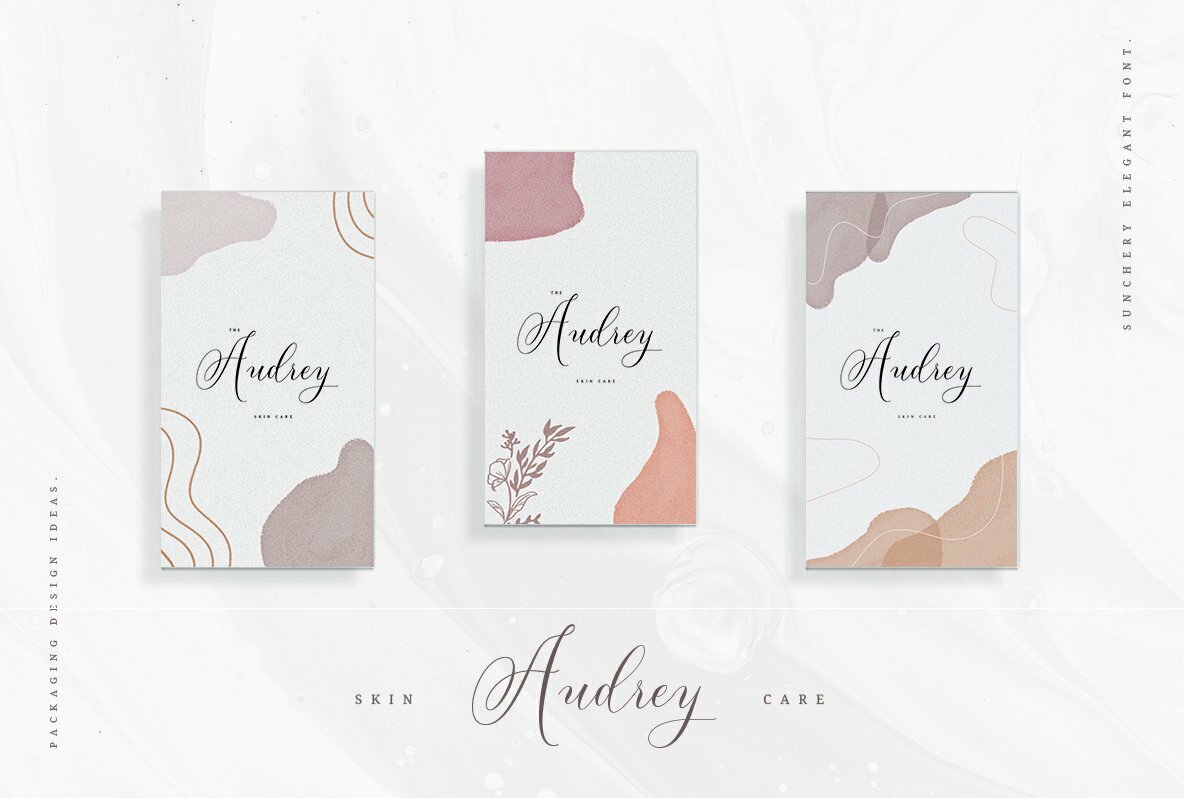
Sunchery Script Font
Sunchery Script exudes modern sophistication with a distinct calligraphy style that elevates design projects with grace and charm. This font captures a harmonious blend of elegance and friendliness, making it a perfect choice for wedding invitations, logos, website headers, and fashion-related designs. With its full set of both lowercase and uppercase letters, punctuation, numerals, and multilingual support, Sunchery Script offers comprehensive versatility for any creative endeavor.Sunchery Script: Versatile Calligraphy Elegance